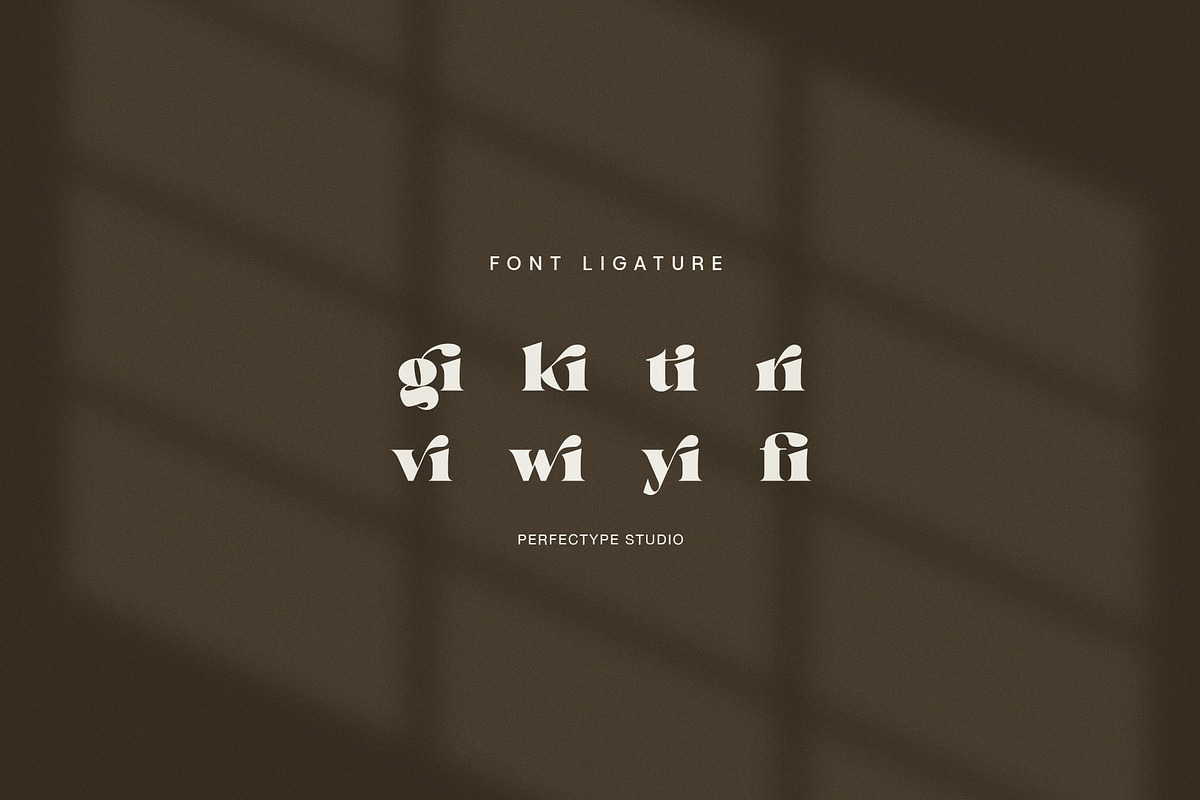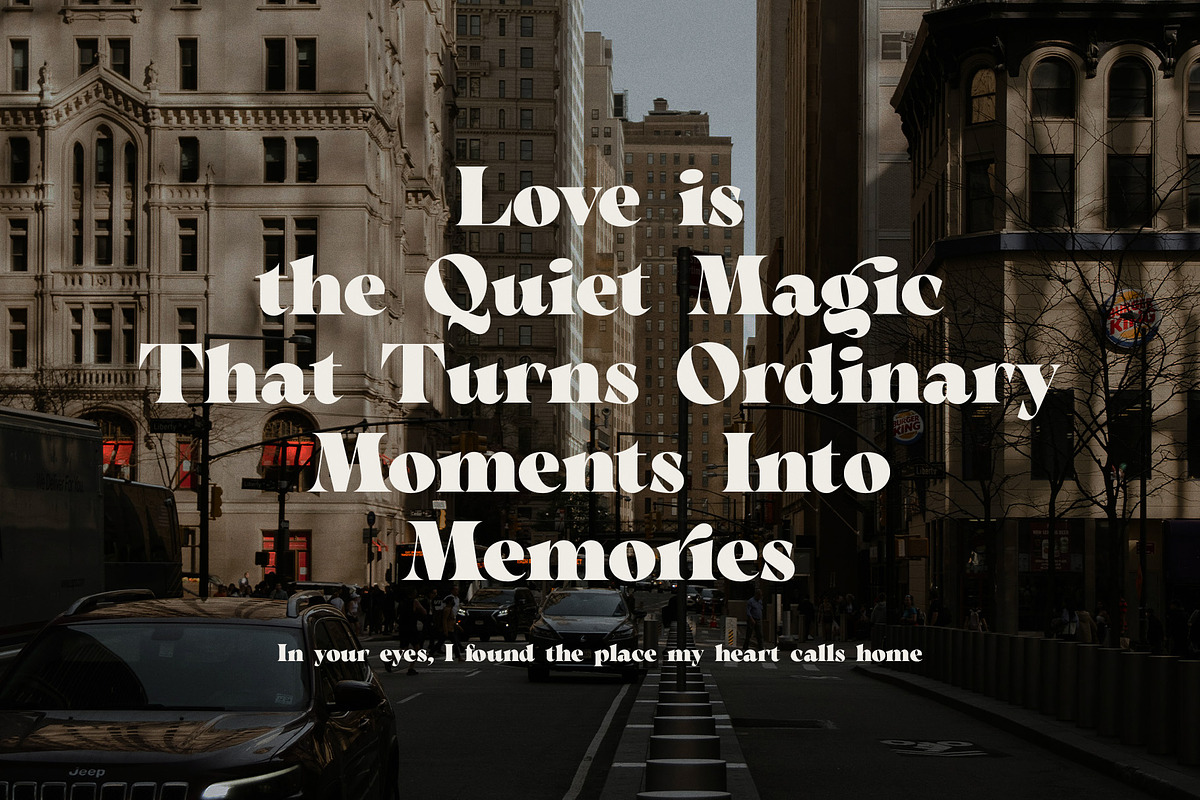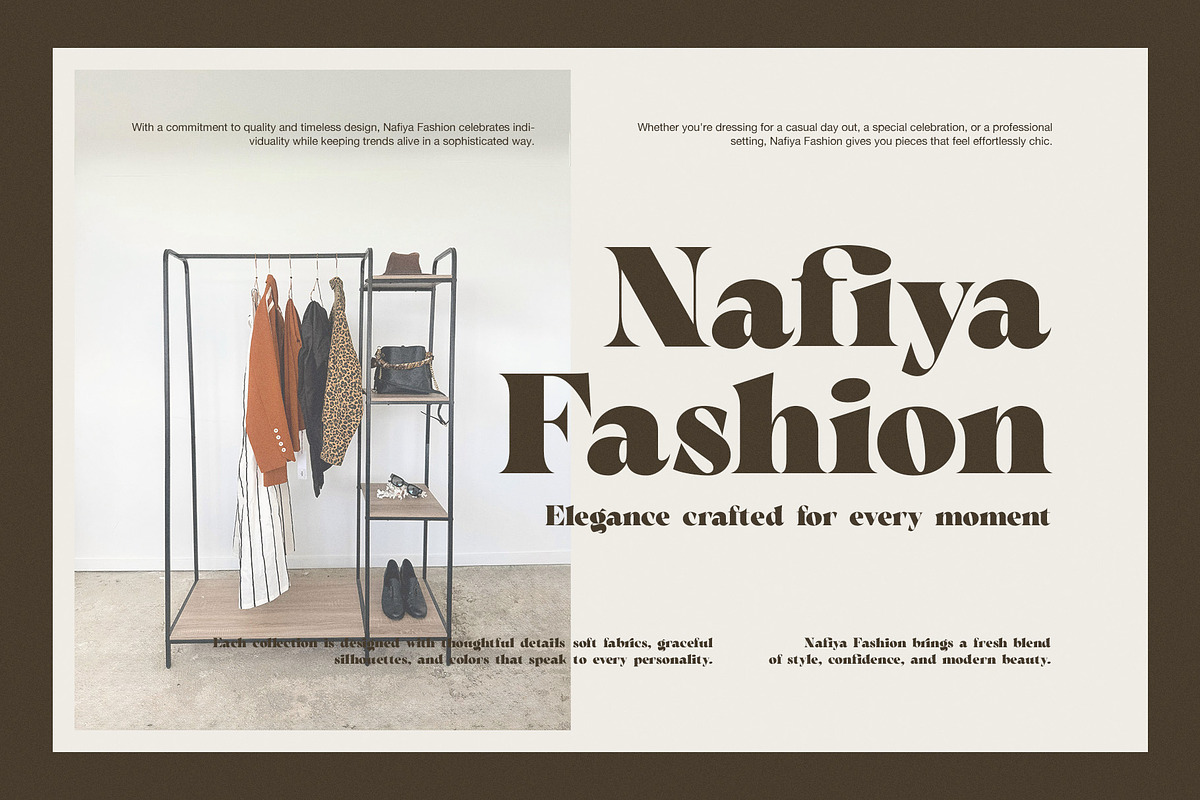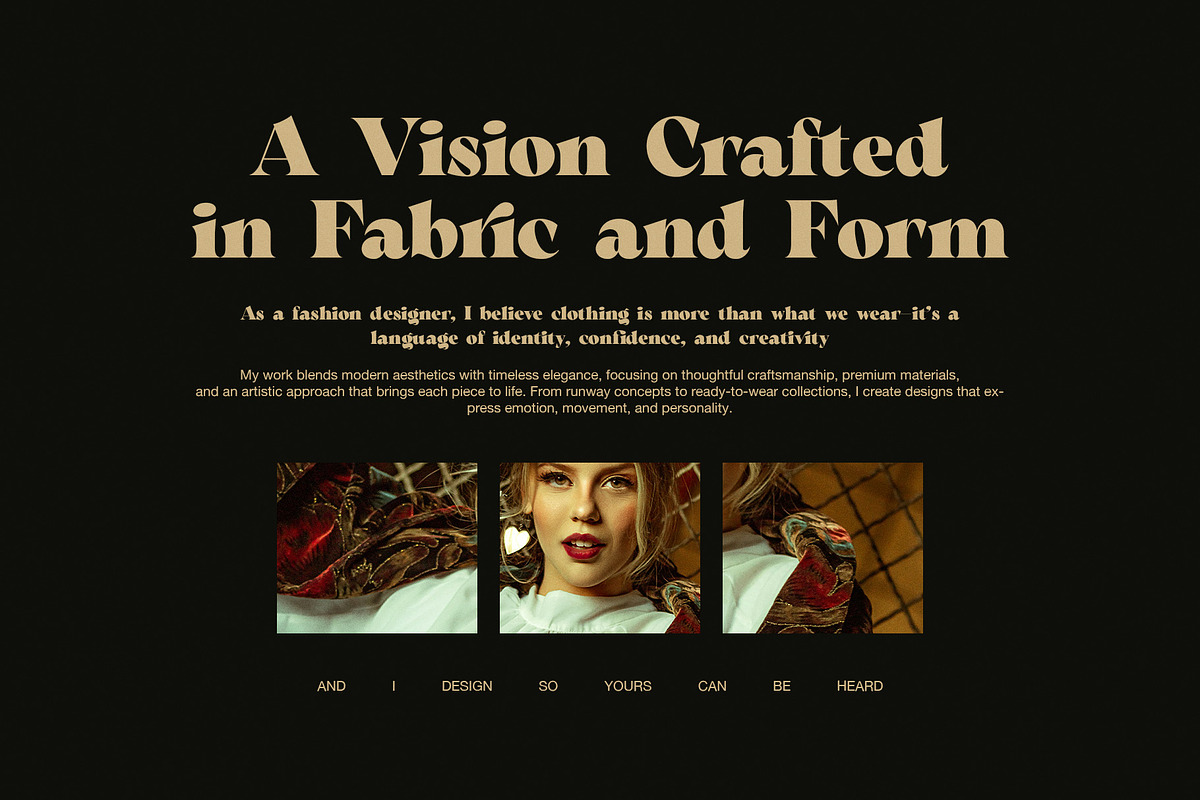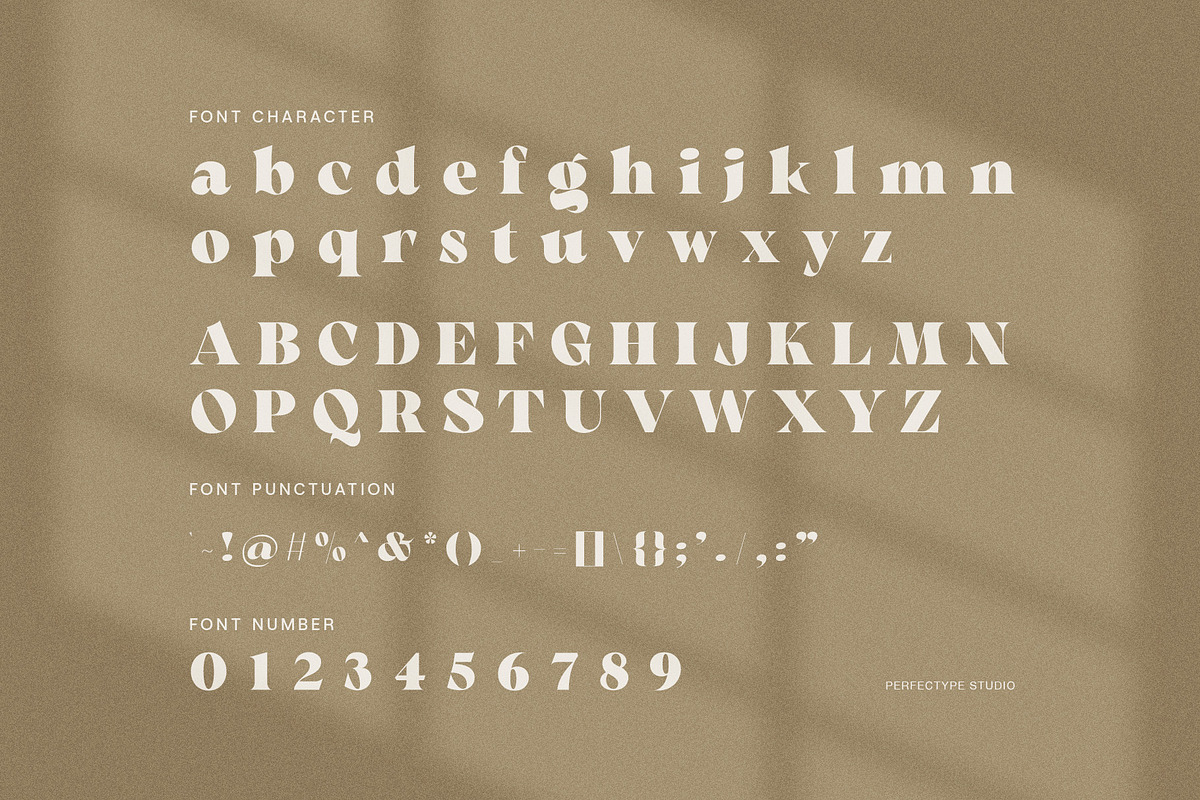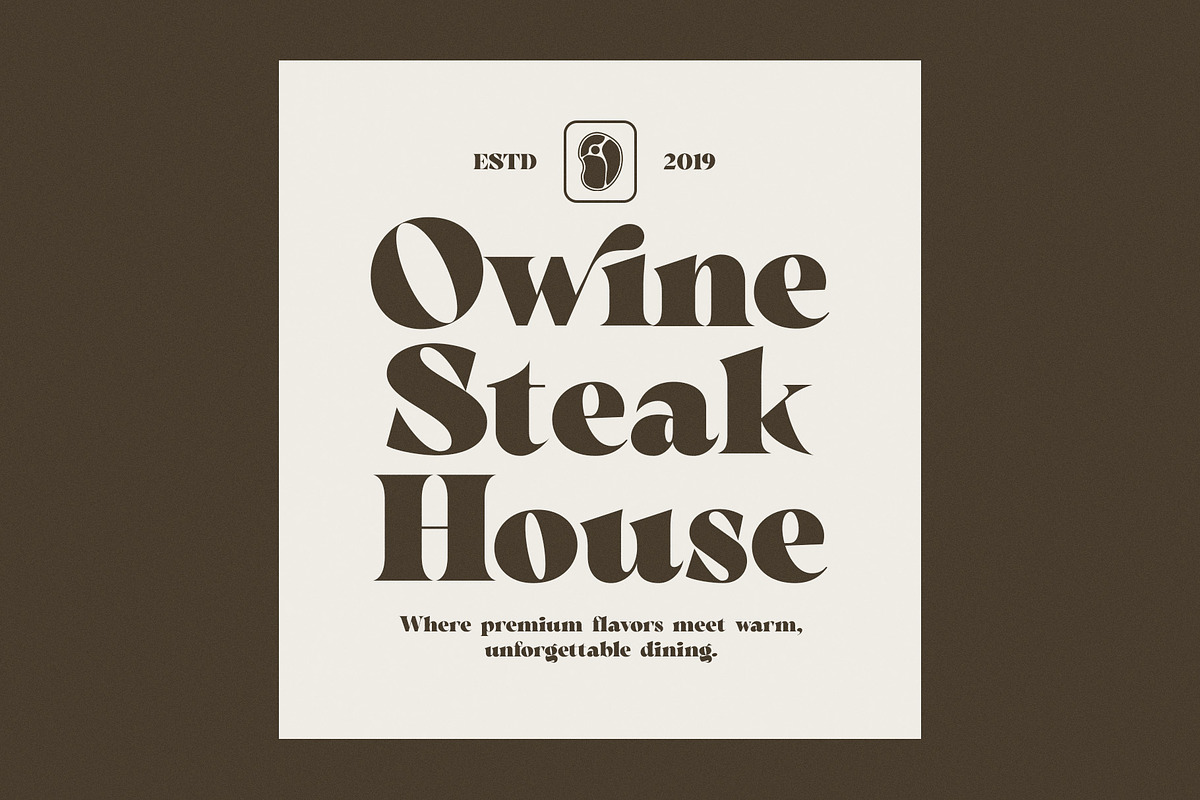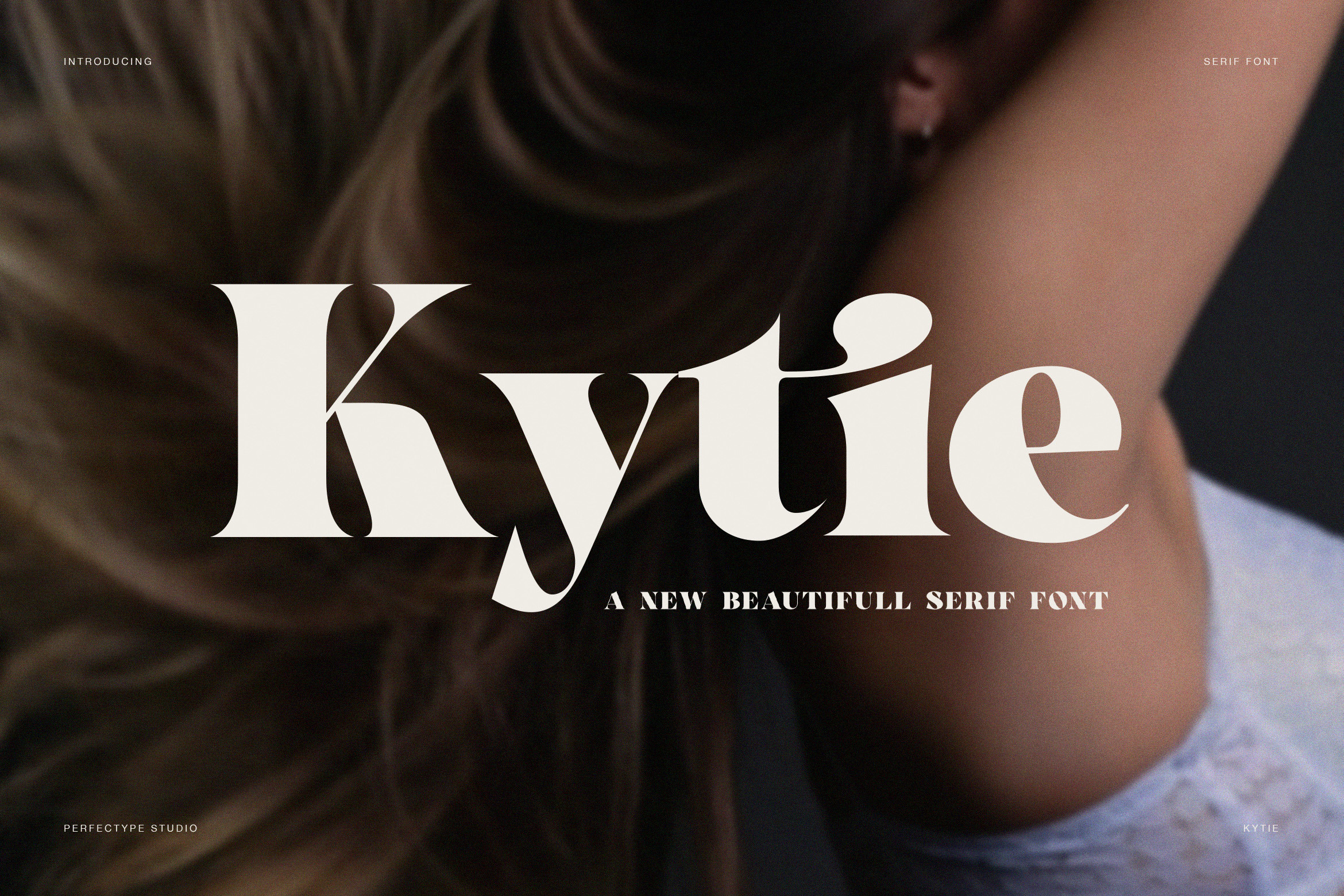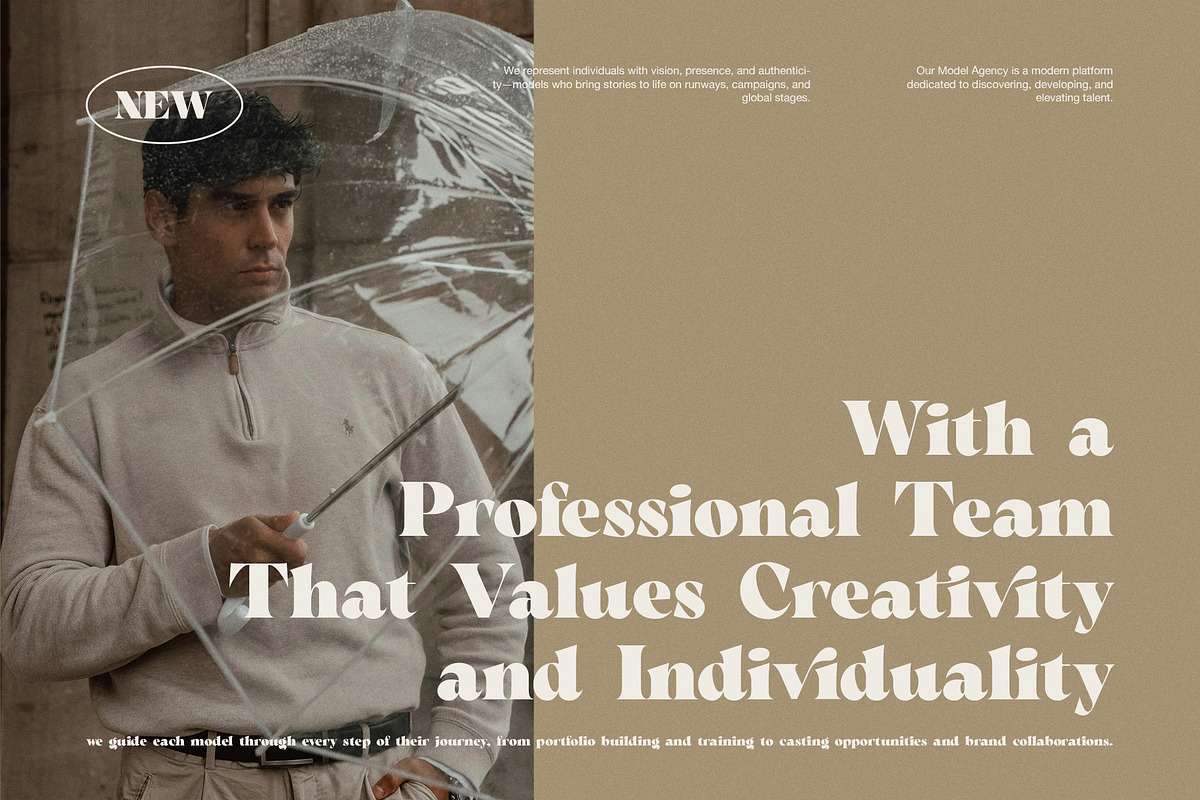
Kytie Elegant Serif Font
Kytie is an elegant serif font created to express warmth, confidence, and timeless beauty. From the first impression, this typeface delivers a soft yet refined personality. Therefore, it feels perfectly suited for fashion, lifestyle, and editorial design projects that need elegance without rigidity.
Moreover, Kytie combines classic serif foundations with gentle curves and smooth contrast. As a result, each letter feels calm, balanced, and naturally stylish. In addition, the font includes subtle ligatures that enhance visual flow while keeping text clean and readable. Because of this, Kytie performs beautifully in headlines, brand names, and expressive statements.
This elegant serif font was designed with modern branding in mind. Consequently, it works exceptionally well for fashion lookbooks, boutique logos, restaurant branding, and creative websites. Furthermore, its friendly yet sophisticated tone allows designers to communicate emotion, storytelling, and individuality with ease.
Kytie supports both uppercase and lowercase characters that feel consistent and polished. Meanwhile, its punctuation and numerals maintain the same refined style. Therefore, designers can confidently build complete layouts without switching typefaces. Additionally, the ligatures add a handcrafted feel, making designs appear more personal and premium.
Because clarity is essential, Kytie avoids sharp or aggressive forms. Instead, it focuses on smooth shapes and gentle proportions. As a result, the font remains easy to read across print and digital platforms. Likewise, it adapts seamlessly to editorial layouts, brand campaigns, and inspirational quotes.
Elegant serif style with soft, modern character
Subtle ligatures for smooth typographic rhythm
Perfect for fashion, lifestyle, and editorial use
Warm, readable letterforms for digital and print
Ideal for branding, quotes, and storytelling designs
Ultimately, Kytie is more than a serif font. Instead, it is a visual voice that communicates elegance, emotion, and authenticity. If you need a serif font that feels refined yet approachable, Kytie is the perfect choice.